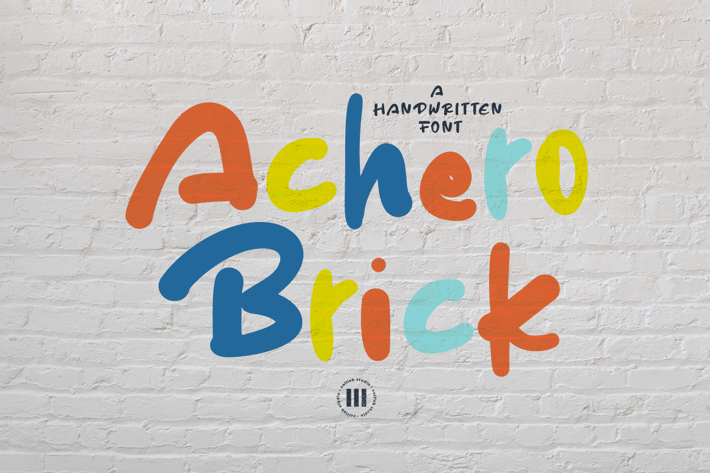
Achero Brick - A Playful Display Font
Achero Brick is a playful display font that is suitable for design projects; playful theme, logo, branding, poster, quotes, display, beautiful stationary art, eye-catching social media posts, and cute greeting cards, and any other designs.
Full uppercase and lowercase glyphs
Numbers, punctuations, and symbols